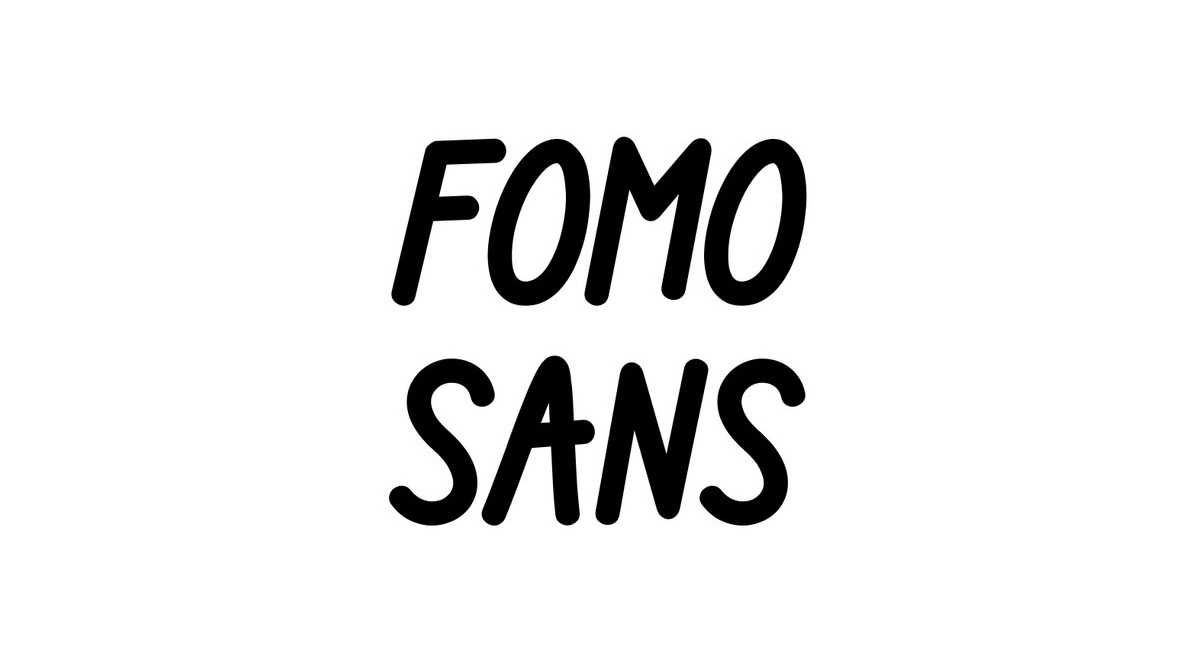
Download Fomo Sans font, a simple handwriting typeface with two styles. Fomo Sans is perfect for creating quotes, crafts, or just adding a handmade touch to any project.
Designer: Fomo